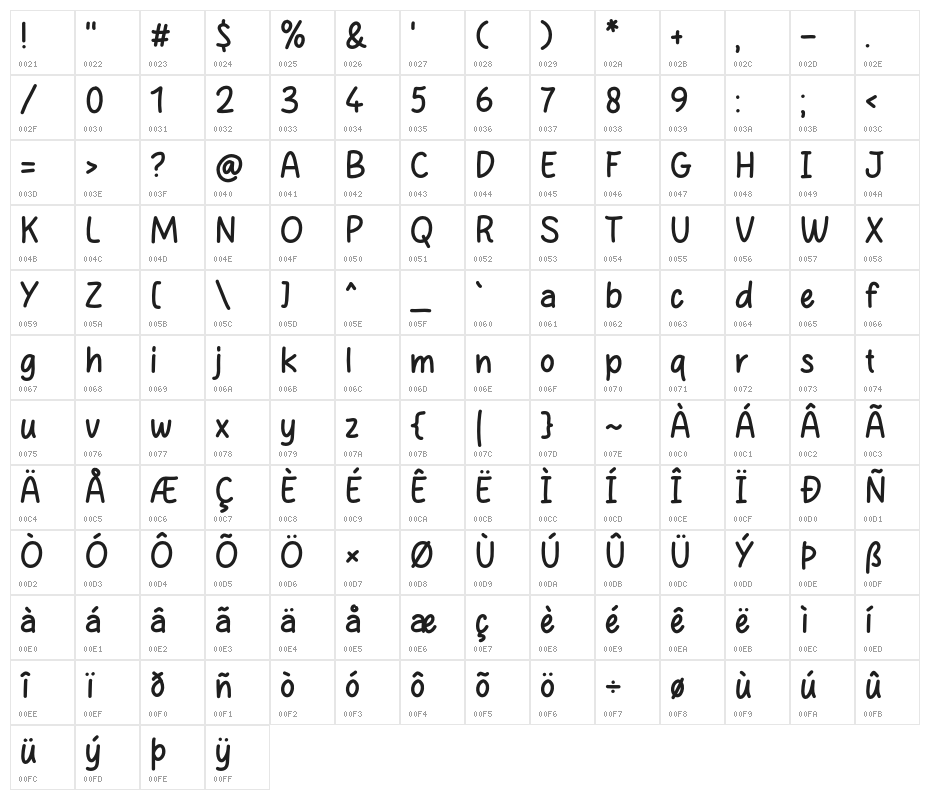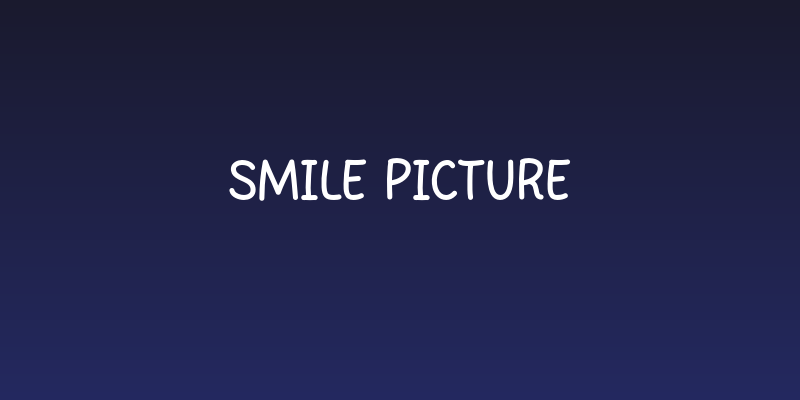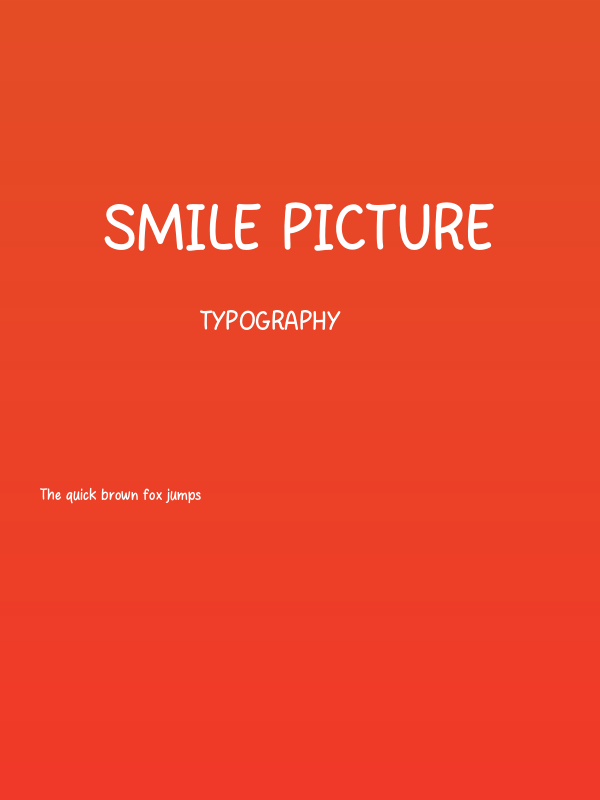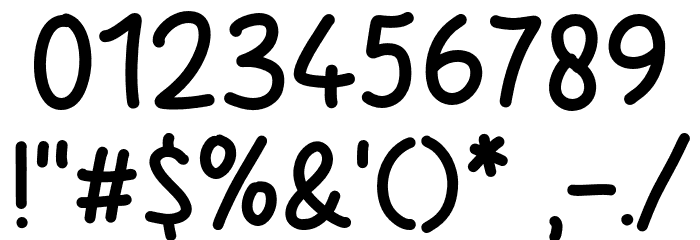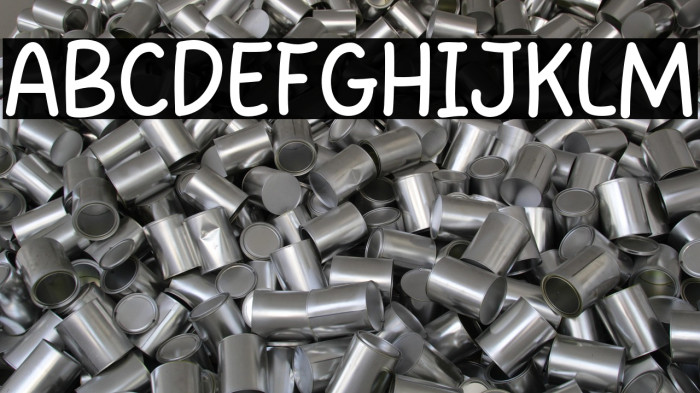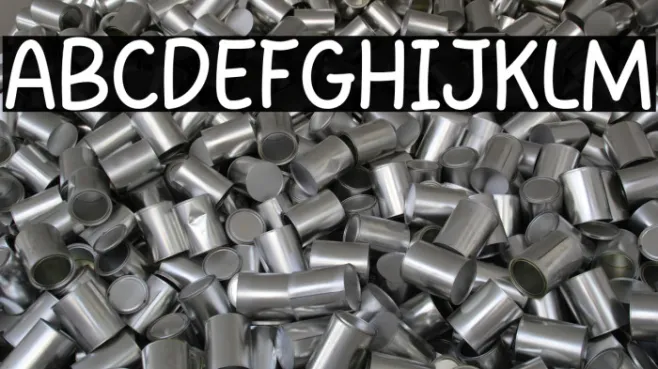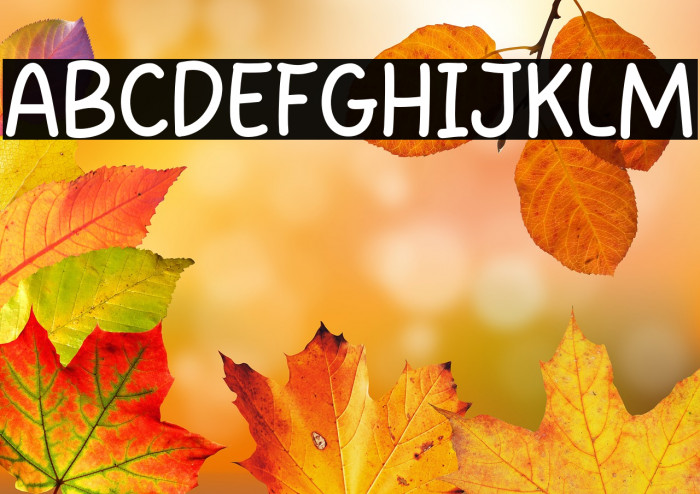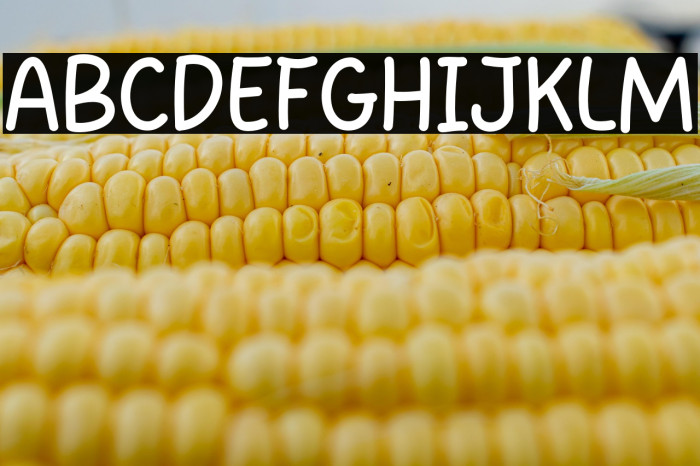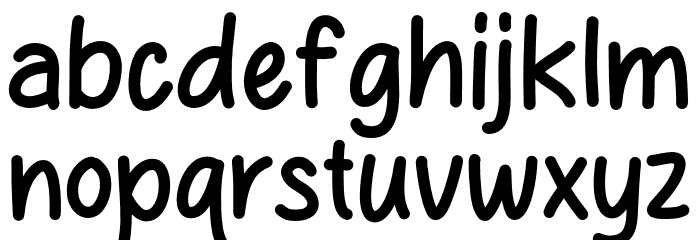
Smile Picture Font
| Gesamtstil | Casual, Playful |
| Anwendungsfall | Logos, Headlines, Informal Text |
| Vorgeschlagene Projekte | Ideal for greeting cards, children's books, casual branding, and social media graphics. |